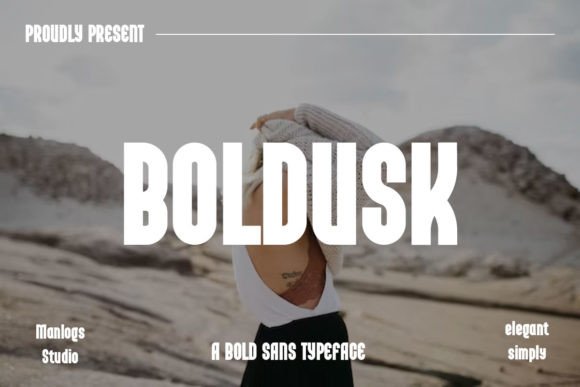
Step into the world of sophistication and simplicity with BOLDUSK, an exquisite sans serif font crafted with meticulous care by Manlogs Studio. Designed to captivate and allure at first sight, BOLDUSK possesses a captivating broad appeal, making it an indispensable asset for any creative endeavor you embark on.
With its timeless elegance, BOLDUSK effortlessly elevates the visual impact of your fashion products, breathing new life into your designs. Whether you're creating fashion designs, templates, brochures, or videos, BOLDUSK's clean lines and stylish curves will leave an unforgettable impression that speaks volumes about your attention to detail and commitment to excellence.
Harness the power of BOLDUSK to craft logos that command attention and leave a lasting impact in the minds of your customers. Its simple yet striking presence will make your brand shine, setting you apart from competitors and establishing a strong visual identity that resonates with your target audience.
BOLDUSK's versatile charm extends to invitations and layout designs, adding a touch of sophistication that elevates your creations to new heights. Its graceful curves and striking angles blend harmoniously to create elegant crafts that captivate the eye and leave a lasting impression.
Unleash your creativity and let BOLDUSK be your trusted companion in designing apparel, quotes, and t-shirt designs that turn heads wherever you go. Its versatility knows no bounds as it effortlessly complements fashion magazines, product packaging, and tote bags, adding a touch of understated luxury to your designs.
Join the ranks of discerning creatives who have discovered the transformative power of BOLDUSK. Embrace its enchanting allure and watch as your designs blossom into masterpieces that speak to the hearts of your audience. Allow BOLDUSK to be the cornerstone of your creative endeavors and experience the joy of crafting designs that leave an indelible mark on the world.